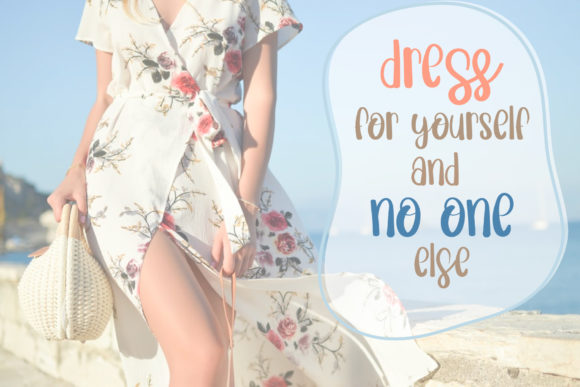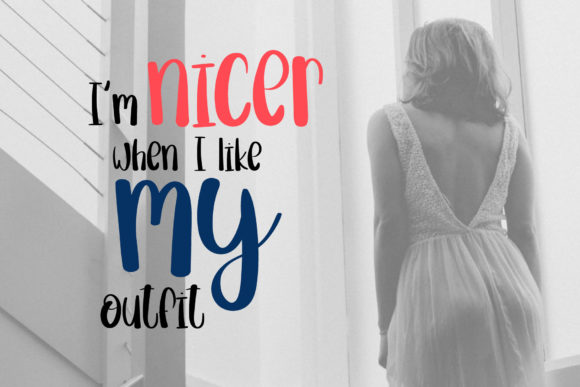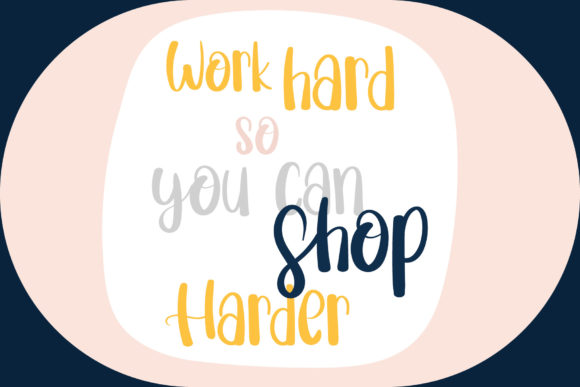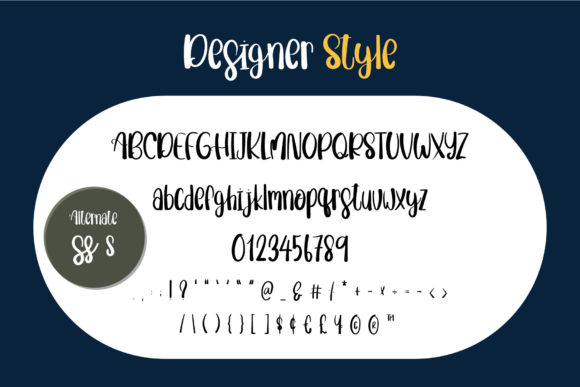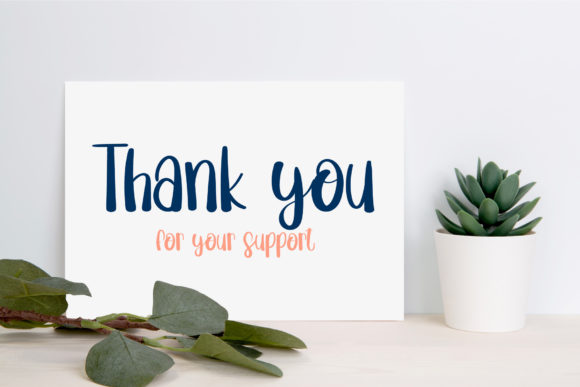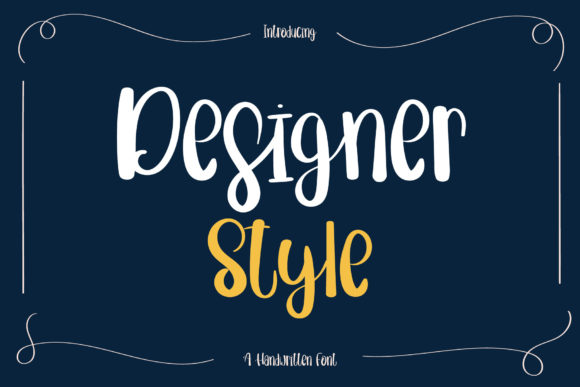
Discover the Charm of Designer Style Font: Elevate Your Creations with a Whimsical Script Font
Are you a designer or crafter looking for a font that can add a touch of personality to your creations? Look no further than the Designer Style Font, a whimsical script font with a relaxed theme that’s sure to become a valuable asset in your font library. With its lovely style and versatility, this font can elevate any project, regardless of the topic or theme.
What is Designer Style Font?
Designer Style Font is a carefully crafted script font that exudes a sense of playfulness and elegance. Its relaxed theme makes it perfect for a wide range of applications, from creative branding and advertising to crafting and DIY projects. The font features beautiful, flowing lines and a charming aesthetic that’s sure to capture the attention of your audience.
Key Features of Designer Style Font
- Whimsical Script Style: Designer Style Font boasts a unique and imaginative script style that’s perfect for adding a touch of personality to your designs.
- Relaxed Theme: The font’s relaxed theme makes it suitable for a wide range of projects, from casual branding to creative crafting.
- Lovely Aesthetic: The font’s charming aesthetic is sure to elevate any creation, making it a valuable addition to your font library.
- Versatility: Designer Style Font can be used for a variety of applications, including logos, headings, packaging, and more.
Benefits of Using Designer Style Font
So, why should you choose Designer Style Font for your next project? Here are just a few benefits of using this wonderful font:
- Adds Personality to Your Designs: With its unique and imaginative script style, Designer Style Font can help you create designs that stand out from the crowd.
- Enhances Brand Identity: The font’s relaxed theme and lovely aesthetic make it perfect for creating a strong brand identity that’s both casual and sophisticated.
- Perfect for Crafting and DIY Projects: Designer Style Font is a great choice for crafters and DIY enthusiasts looking to add a personal touch to their projects.
- Easy to Read and Understand: Despite its whimsical nature, Designer Style Font is easy to read and understand, making it perfect for use in a variety of applications.
How to Use Designer Style Font
Using Designer Style Font is easy! Here are a few tips to get you started:
- Pair it with Other Fonts: Experiment with pairing Designer Style Font with other fonts to create a unique and eye-catching combination.
- Use it for Headings and Titles: The font’s whimsical style makes it perfect for use in headings and titles, where it can add a touch of personality to your designs.
- Add it to Your Branding Materials: Use Designer Style Font to create a strong brand identity that’s both casual and sophisticated.